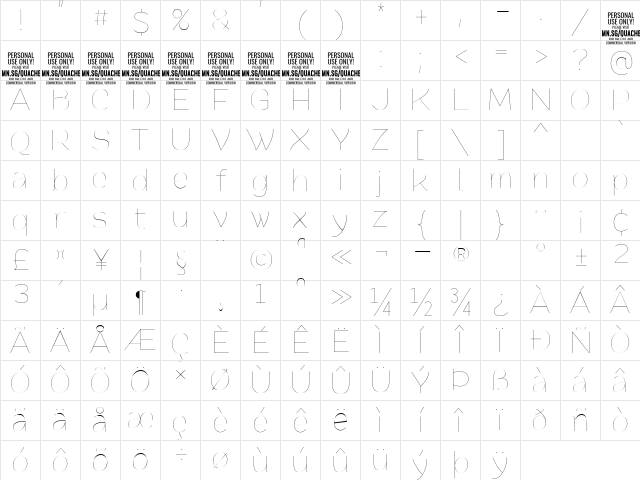
Quache Thin Condensed Free Font
Quache Thin Condensed
Style: Thin Condensed
Foundry: Mans Greback
Designer: Mans Greback
Design Context for Quache
Quache is a composed and adaptable typeface that performs quietly and consistently across a wide range of design contexts. Its slender proportions lend an understated elegance to any composition. Its narrow stance lets it pack a punch even in space-constrained designs.
Who designed the Quache Thin Condensed font?